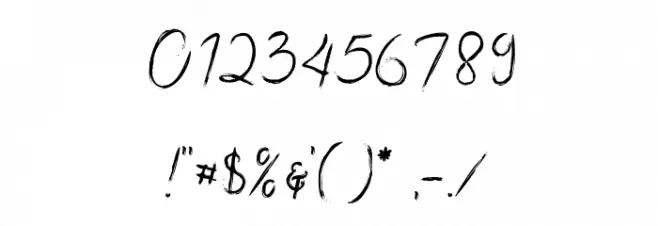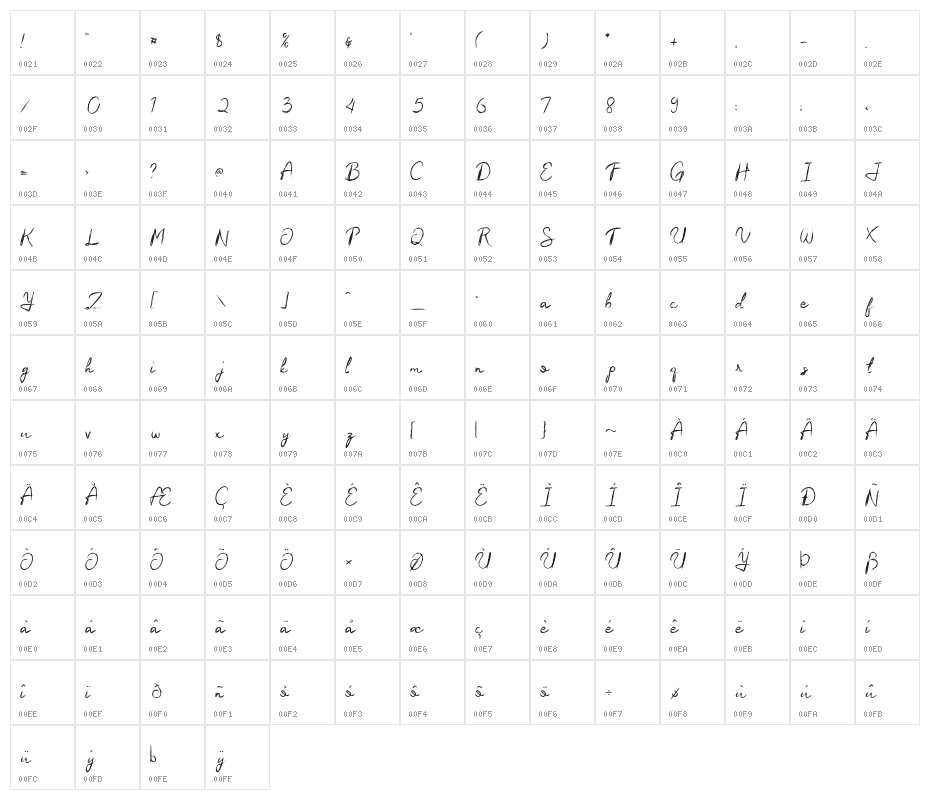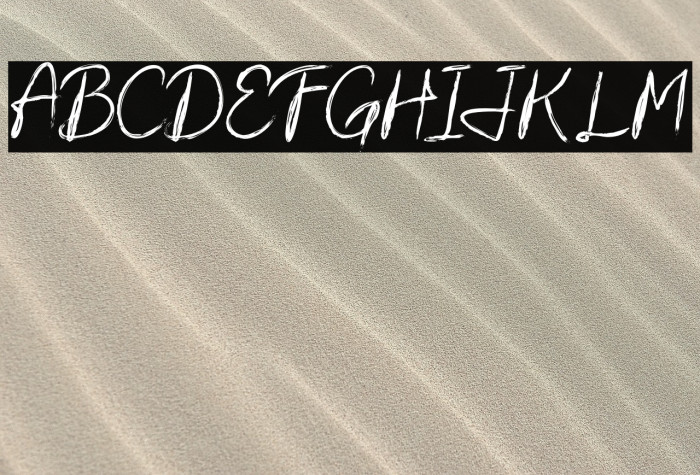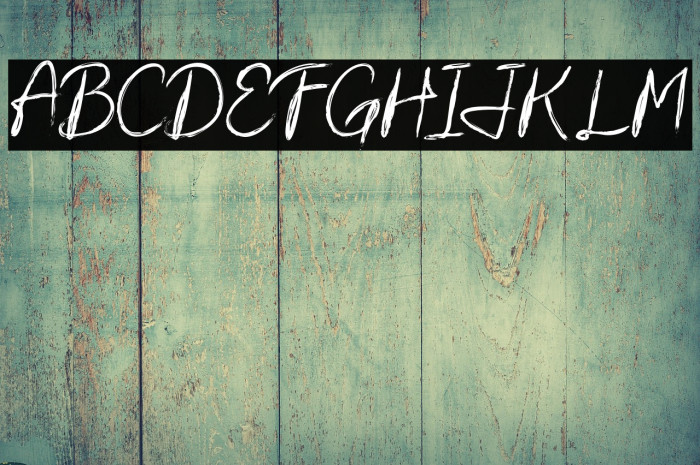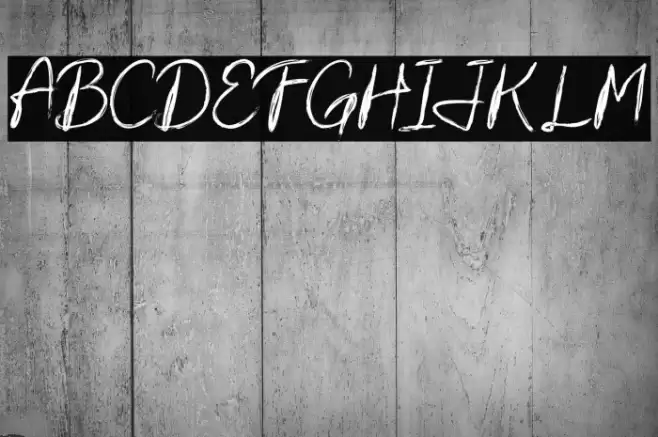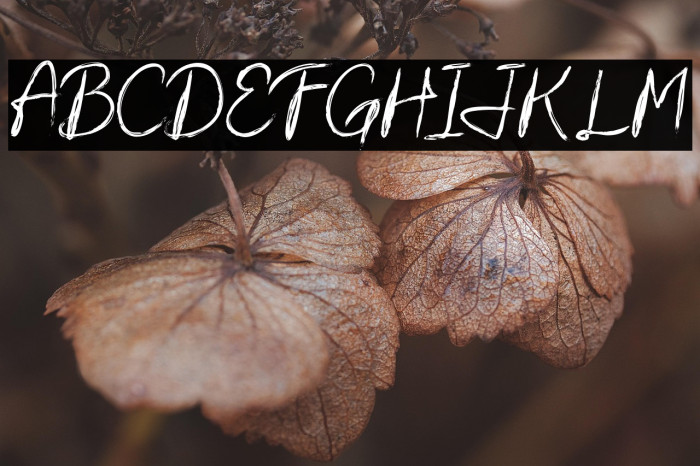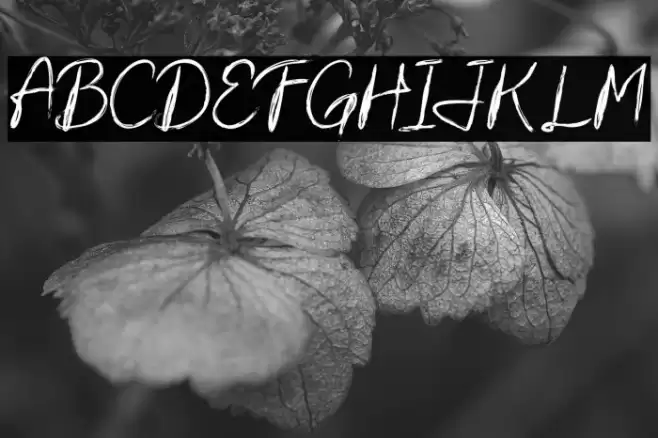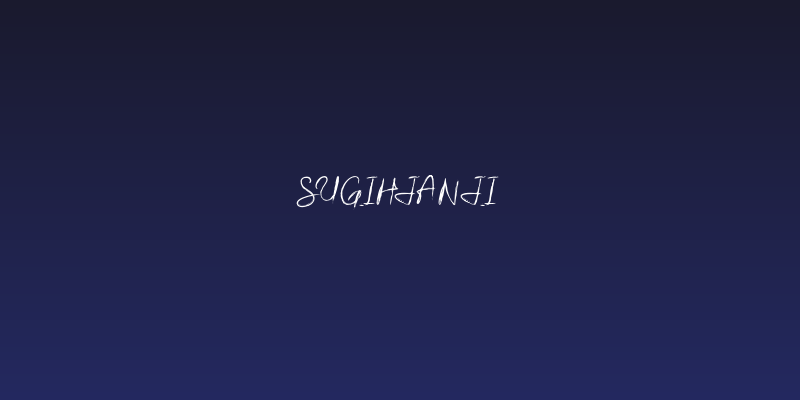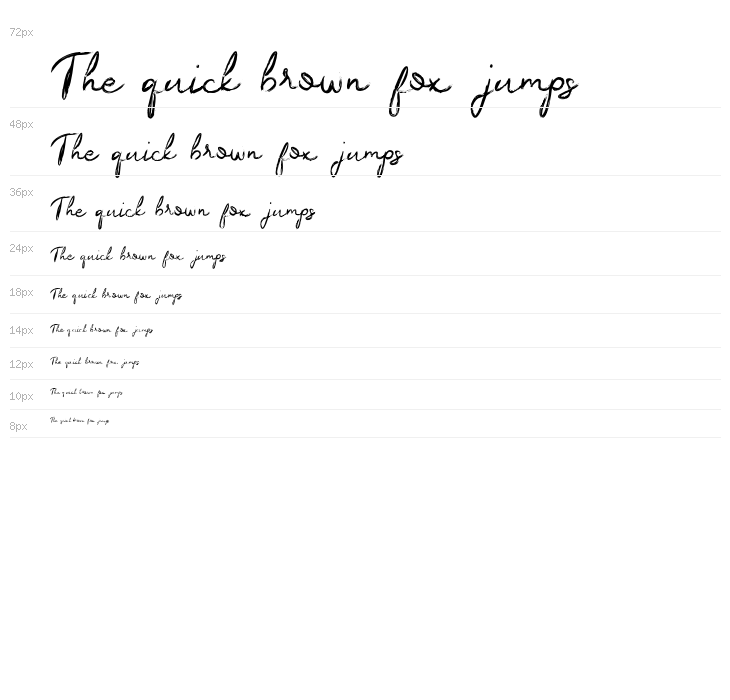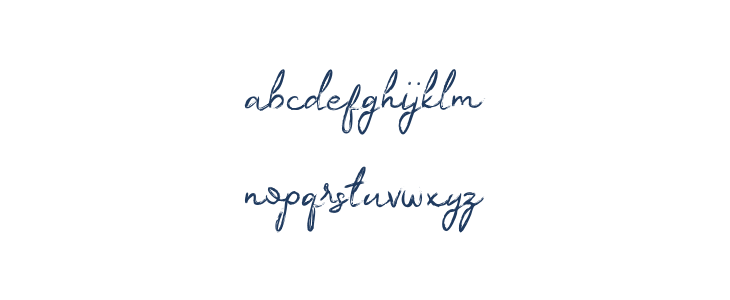
SugihJanji Font
SugihJanji Description
This font features a dynamic and expressive style, characterized by its fluid, brush-like strokes that convey a sense of movement and energy. The uppercase letters are bold and slightly irregular, giving them a handcrafted appearance. The lowercase letters maintain a consistent flow, with elegant curves and loops that enhance its artistic flair. Numbers and special characters are designed with the same brush-like quality, ensuring a cohesive look throughout. The overall design is both modern and artistic, making it suitable for creative projects that require a personal touch.
| Proposed Projects | Ideal for creative projects such as invitations, posters, branding, and artistic designs that require a personal and expressive touch. |